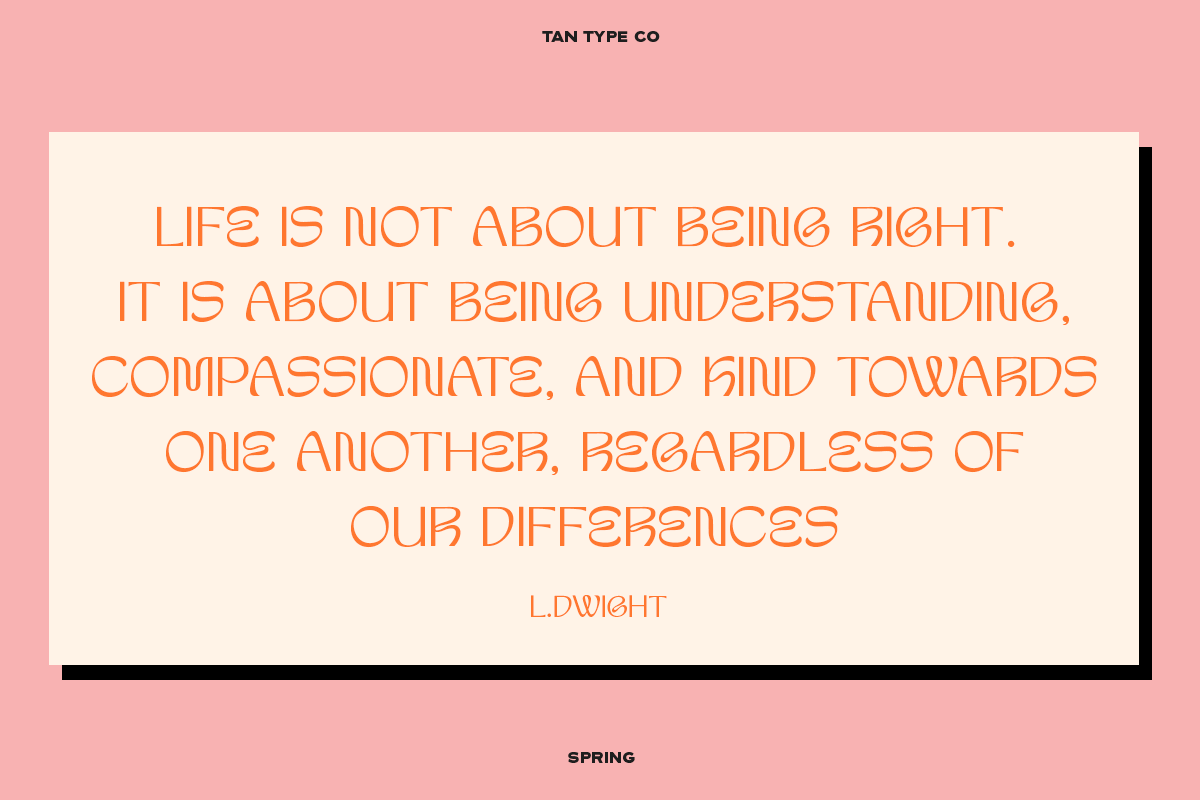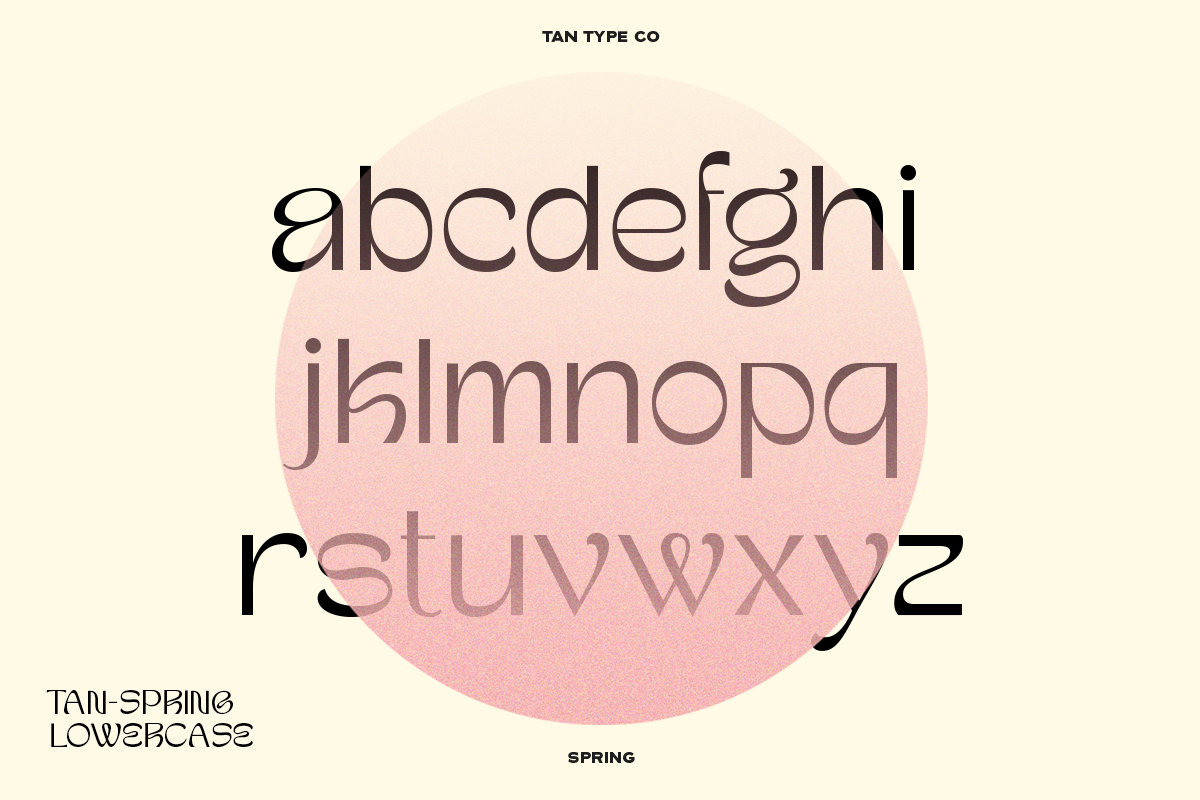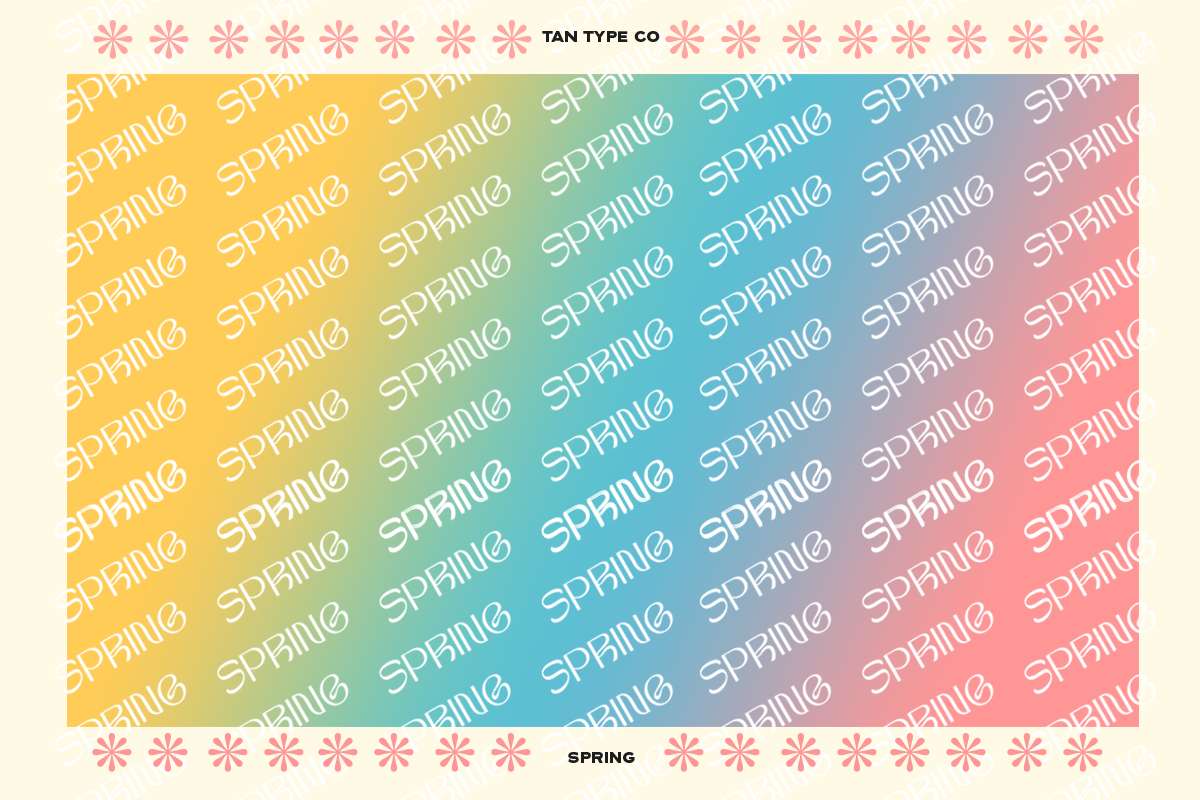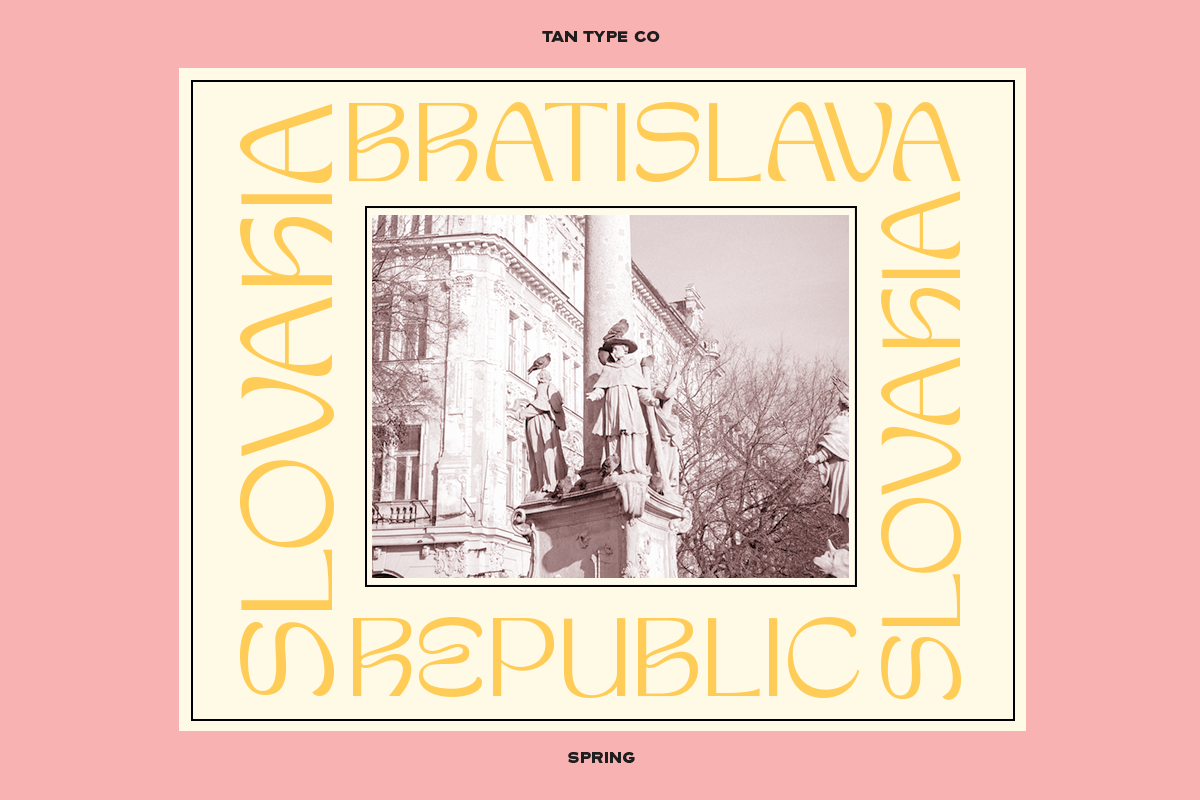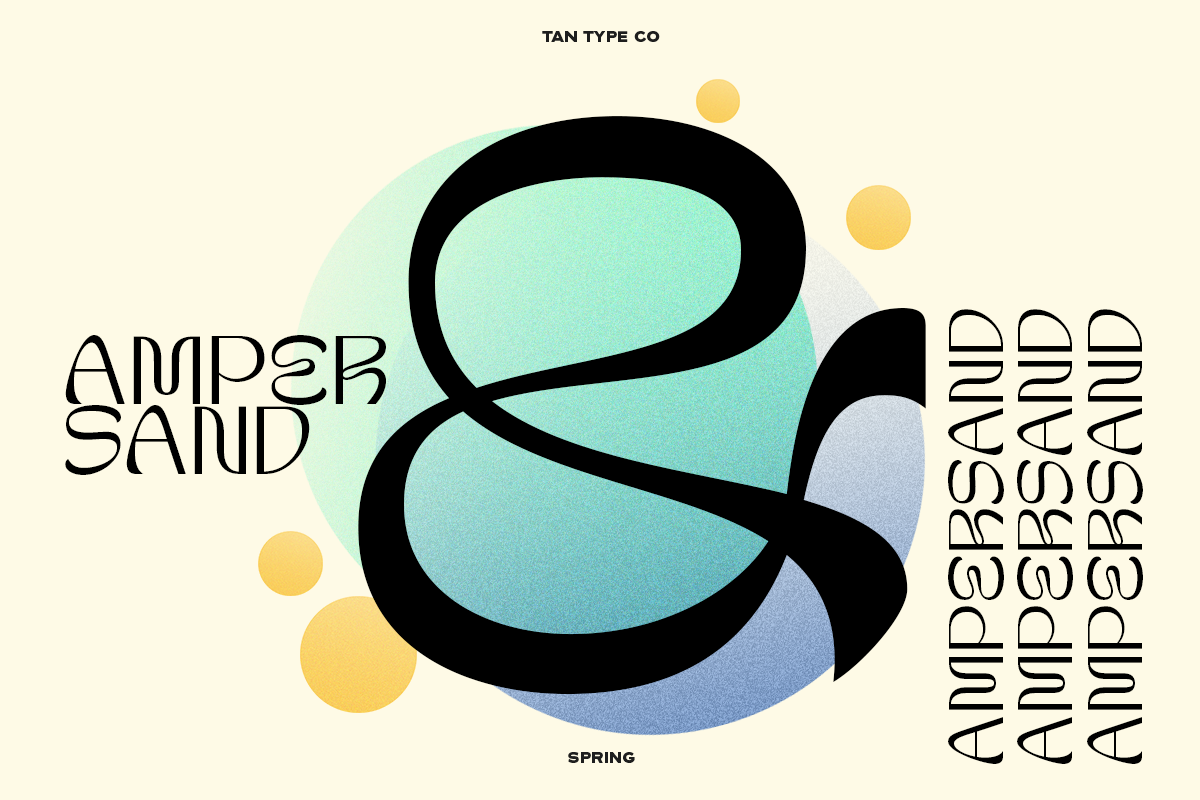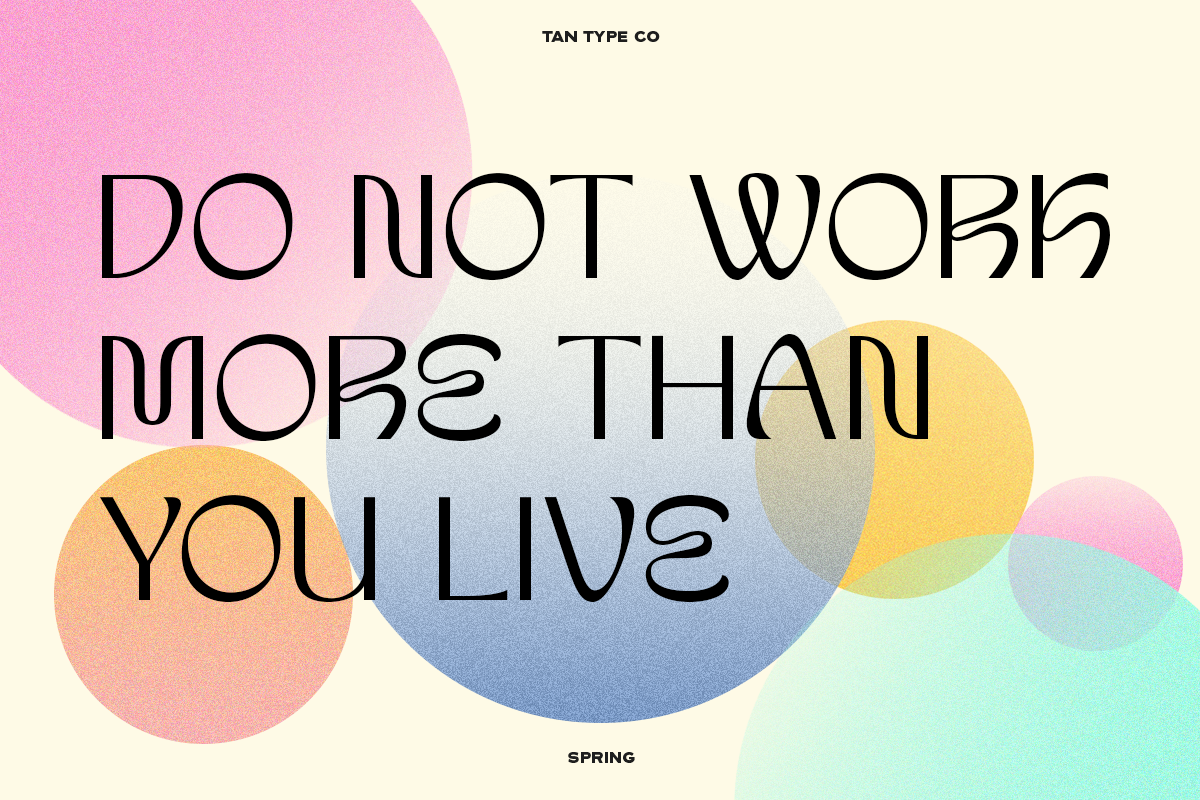
TAN - SPRING is a retro inspired display typeface. It has clean shapes with a hint of groove, bringing a mid-century feel to it.
Stylized fonts, especially trendy ones, can be tricky to use in real-life applications. Spring is great, as it provides that fun art nouveau style without sacrificing legibility on both print and web apps. The visual weight is also well balanced so overall this is a very enjoyable font to use!